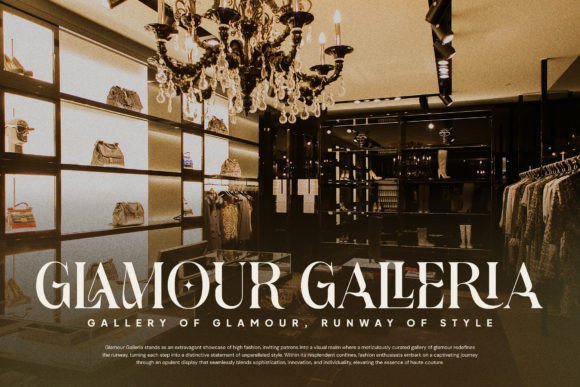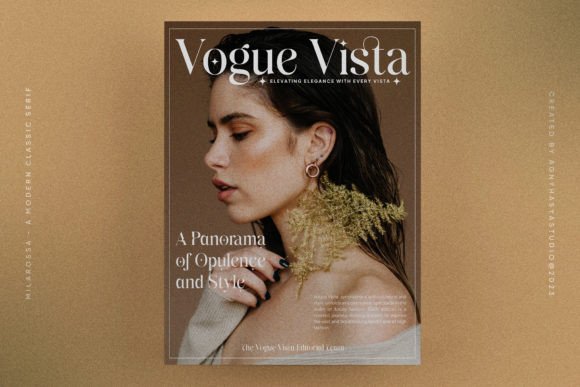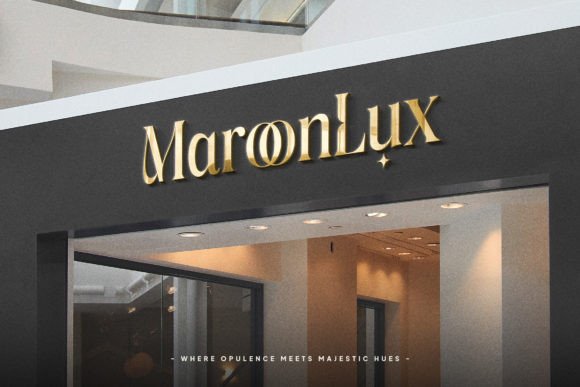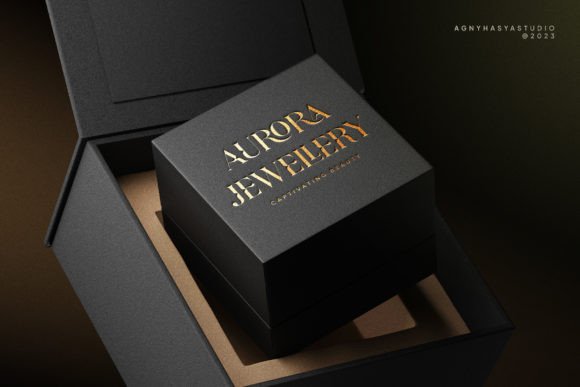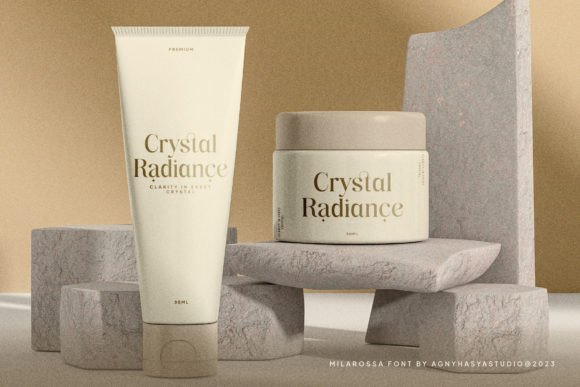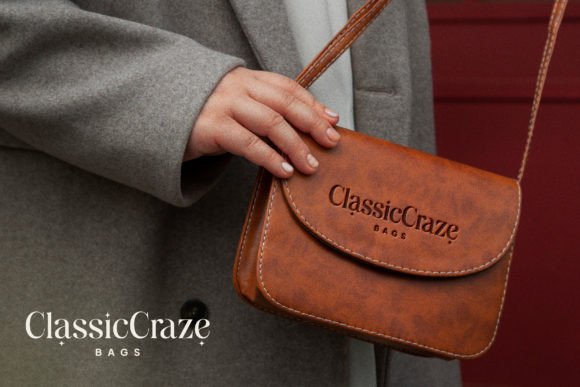
Introduction to Milarossa Font
**Milarossa** Is a Serif Display Typeface That Is Elegant, Classic Yet Modern.
It Comes in 2 (Two) Styles (Regular and italic) and Is Created With Stylistic Alternatives and Ligatures Combine It and Make Your Perfect Typography Design.
Key Features of Milarossa Font